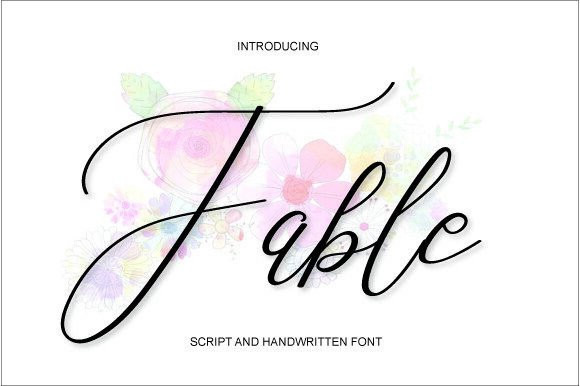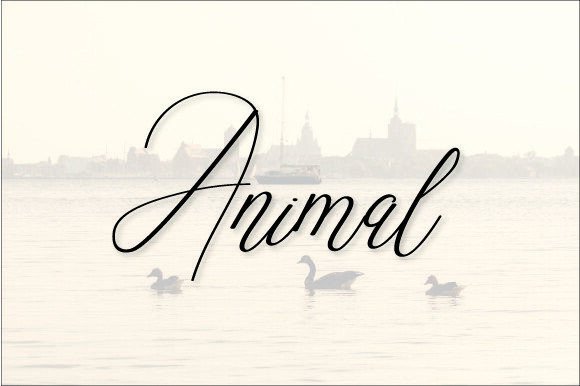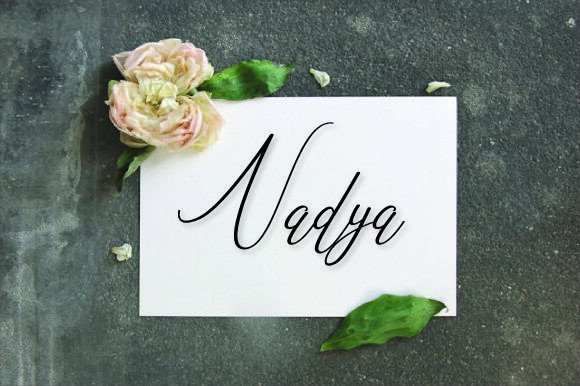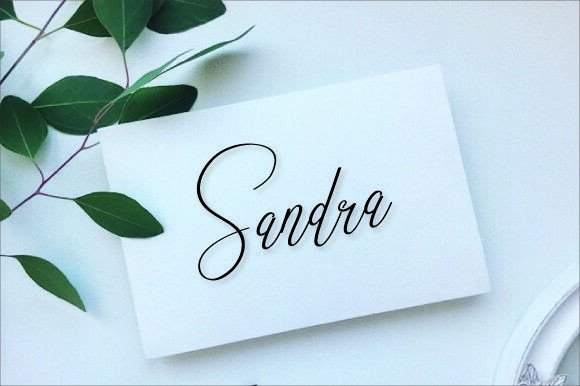
Fable Font
About the Fable Font
Discover the charm of Fable Font. This font is a perfect blend of modern aesthetics and classic appeal. Fable is an exquisite handwritten font, masterfully designed to become a true favorite. It maintains its classy calligraphic influences while feeling contemporary and fresh. Fall in love with it and bring your projects to the highest levels!
Fable excels in applications requiring a touch of elegance and personality, such as wedding invitations, logos for boutique brands, or short-form content in magazine layouts. Its refined strokes work beautifully for headlines, short quotes, and packaging design where a handcrafted feel is desired. However, its calligraphic nature makes it less suitable for body text or UI elements where high readability is paramount.
Pairing Fable effectively depends on the desired mood. For a sophisticated feel, consider pairing it with a clean sans-serif like Lato or a classic serif like Garamond. To enhance its playful side, a geometric sans-serif such as Montserrat could be used. Avoid pairing it with overly ornate fonts, which could create visual clutter.
Fable’s core personality is sophisticated yet approachable; elegant but not overly formal. Its charm lies in its balance of classic calligraphic influences and a modern sensibility.